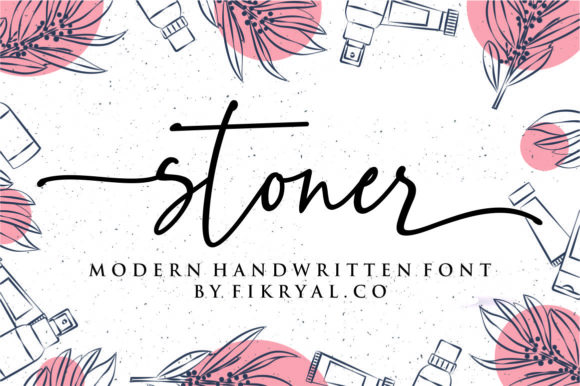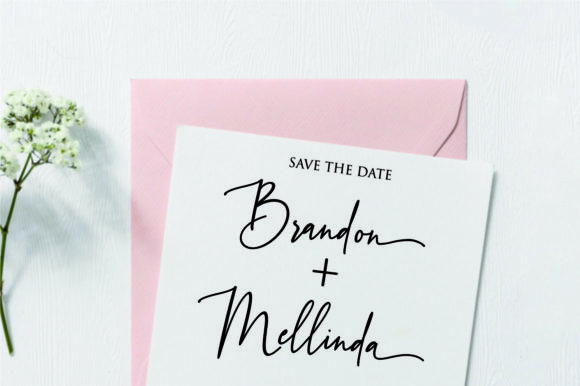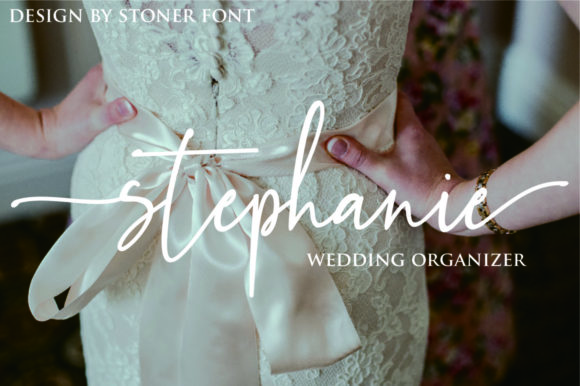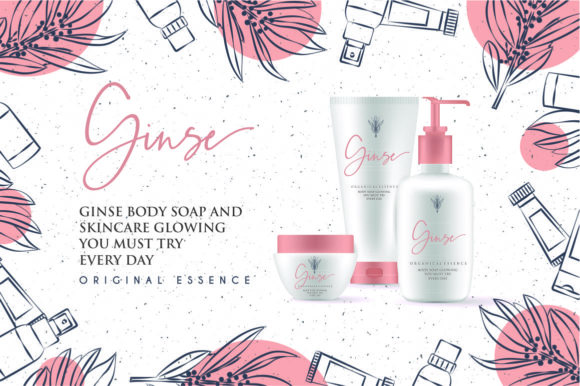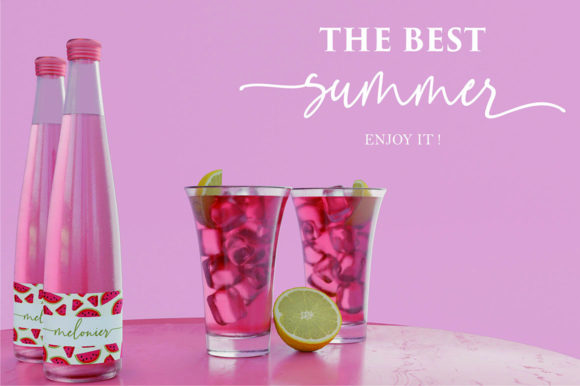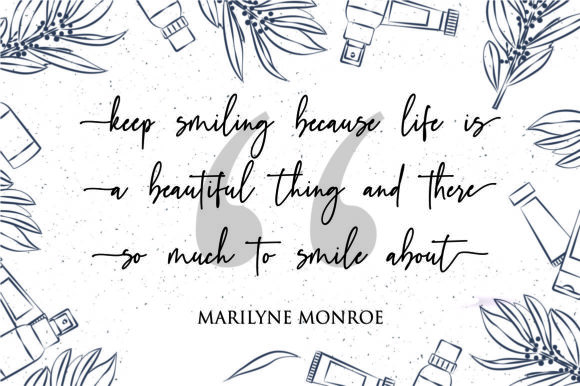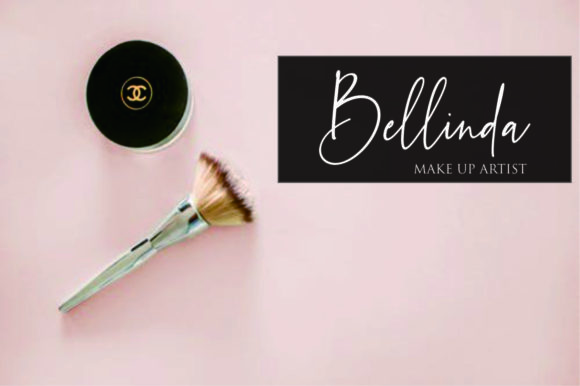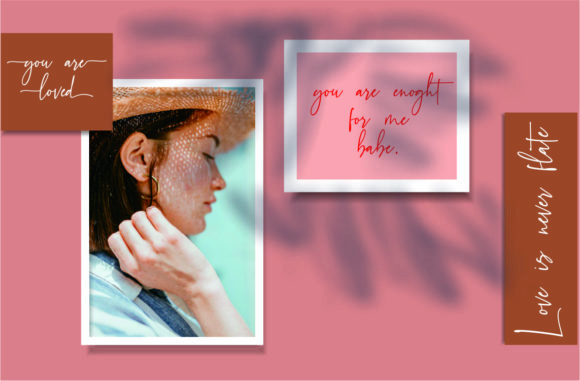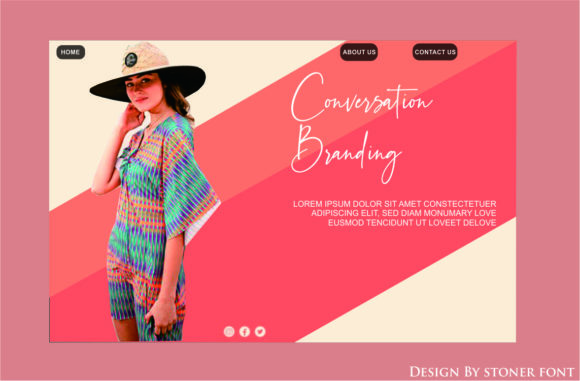
Stoner Font
About Stoner Font
Stoner is an incredibly modern and stunning handwritten font with a cool feel. It will turn any design odea into a true standout!